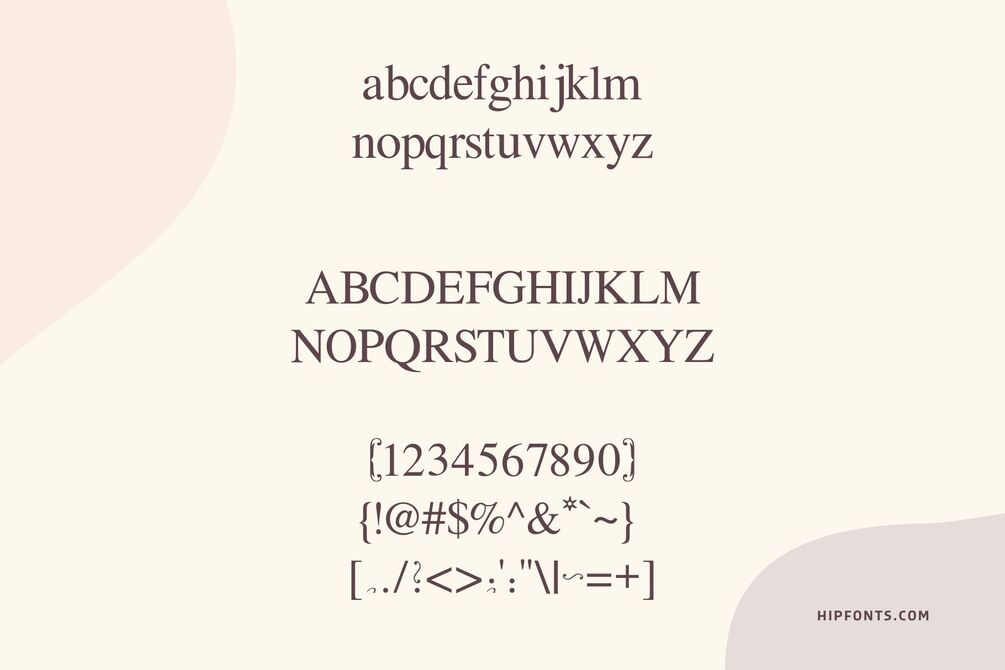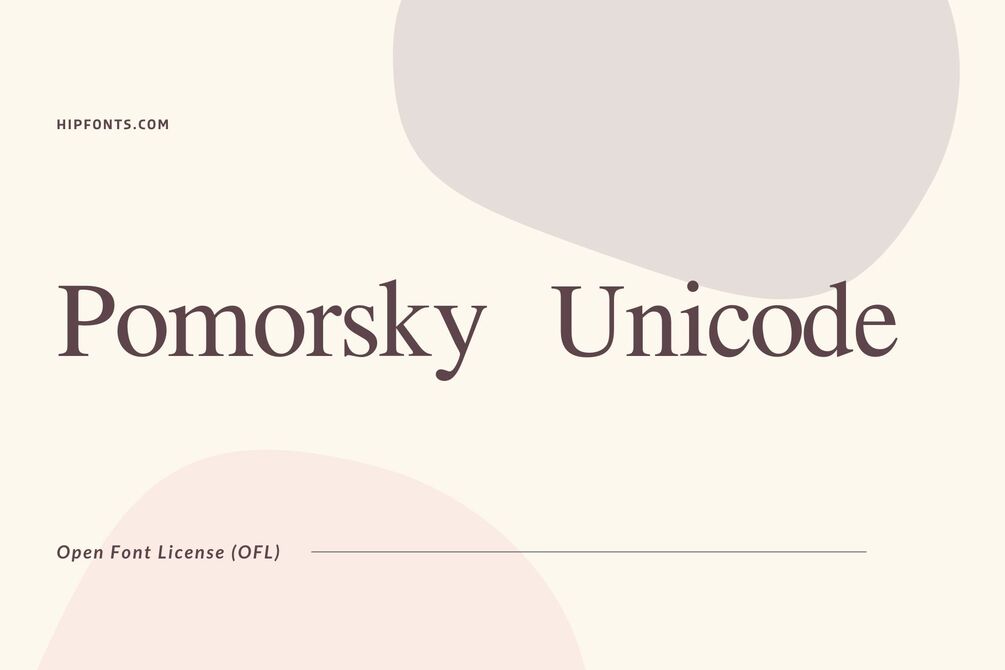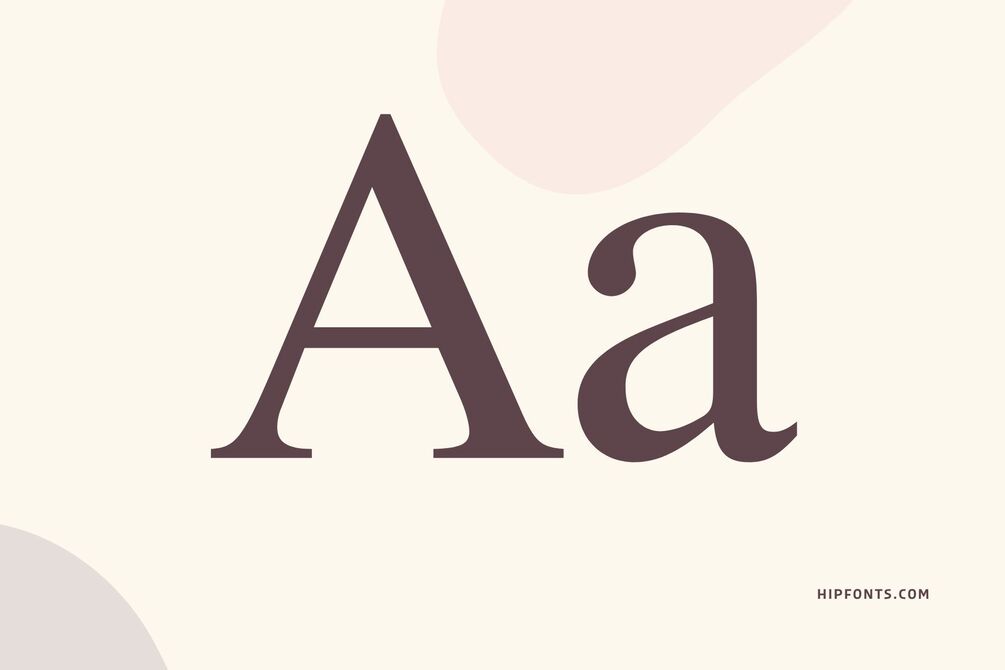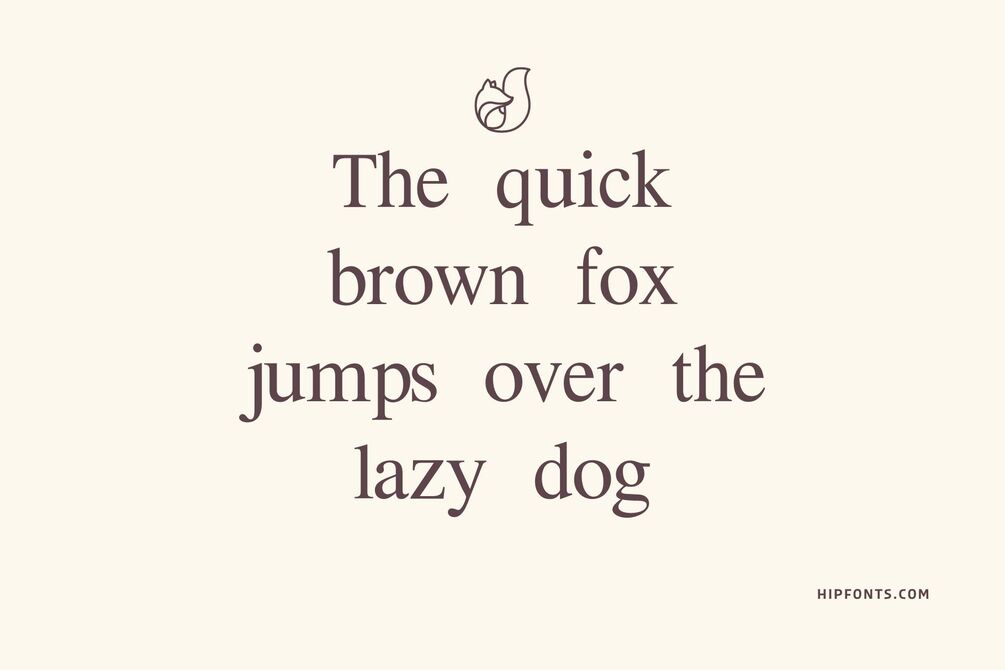
Pomorsky Unicode
Introducing "Pomorsky Unicode," a versatile and visually pleasing font that seamlessly blends classic elegance with modern functionality. Designed by Aleksandr Andreev and Nikita Simmons to cater to a wide range of design needs, Pomorsky Unicode offers a harmonious balance between sophistication and readability. Its letterforms are meticulously crafted, featuring clean lines and gentle curves that evoke a sense of timeless beauty.
Pomorsky Unicode stands out for its extensive character set, supporting a wide range of languages and special characters. This makes it an ideal choice for projects that require multilingual typography, such as international branding, editorial layouts, and global communications. With its comprehensive Unicode coverage, Pomorsky Unicode ensures seamless legibility across different scripts, allowing for clear and consistent communication in diverse linguistic contexts.
The font's versatility shines through in its ability to adapt to various design applications. Whether used for print materials, digital interfaces, or signage, Pomorsky Unicode delivers a visually appealing and readable typography experience. Its clean and well-balanced letterforms make it suitable for both headline and body text usage, ensuring a harmonious typographic hierarchy.
With its blend of classic elegance and modern functionality, Pomorsky Unicode is a reliable choice for designers seeking a versatile and legible font. Whether you're creating elegant brand identities, sophisticated editorial designs, or inclusive multilingual projects, Pomorsky Unicode is the perfect typographic companion that effortlessly bridges cultural and design boundaries.